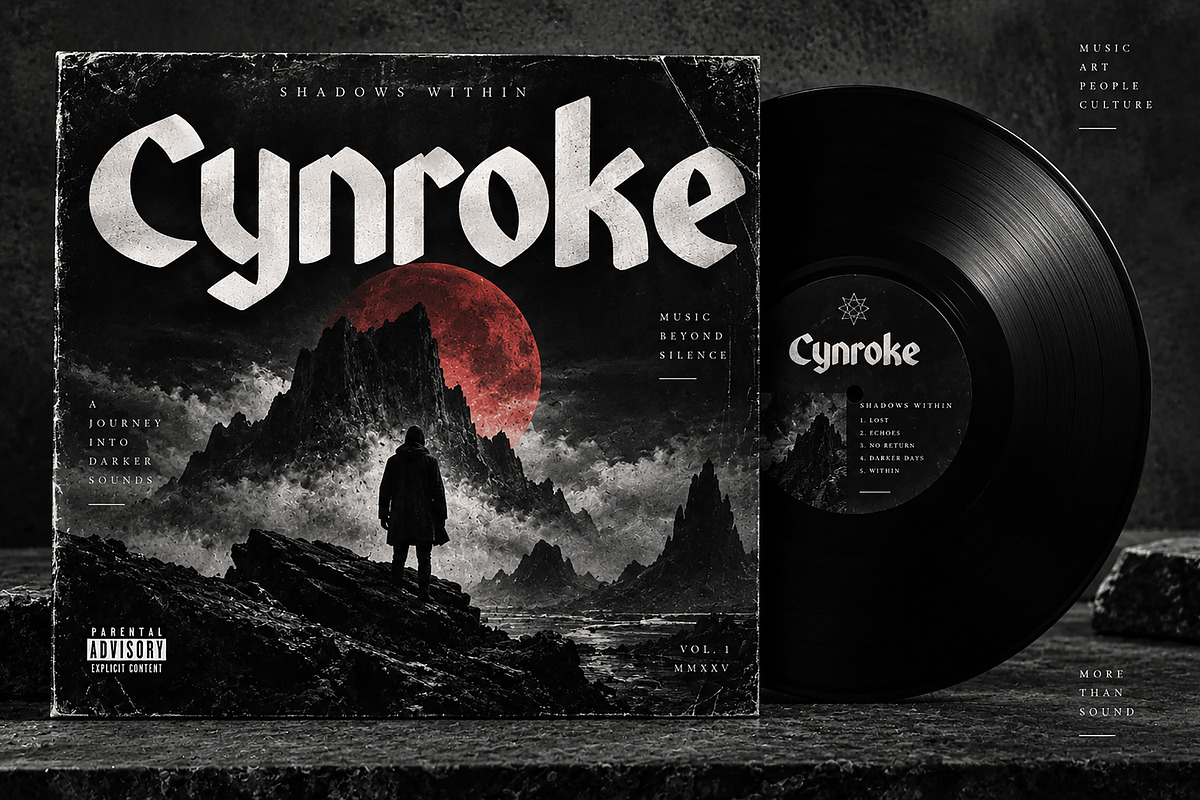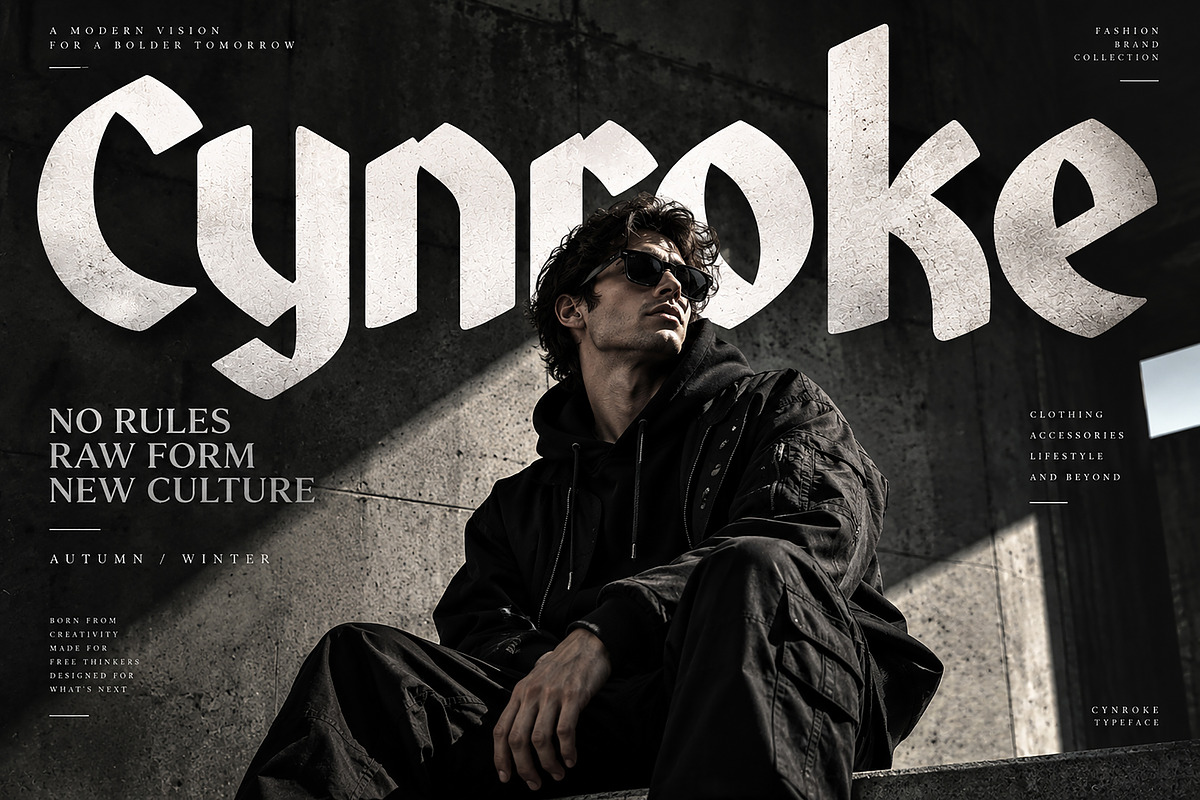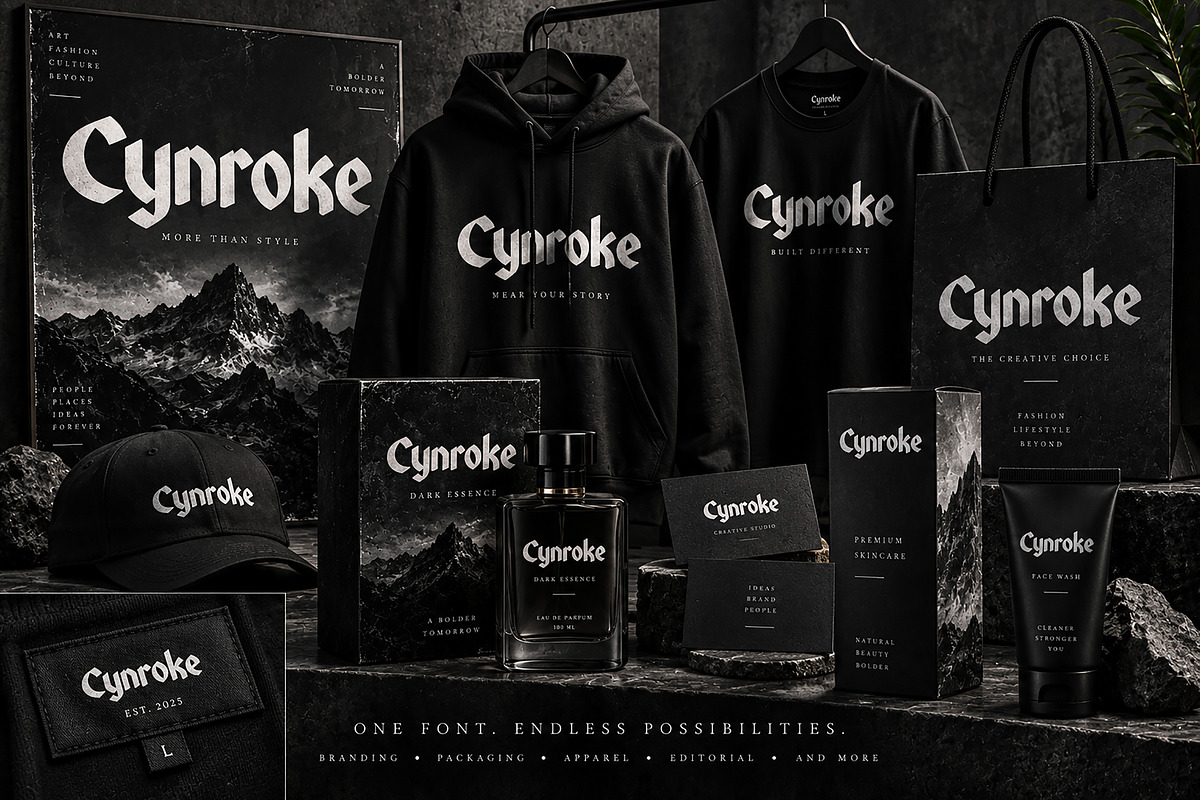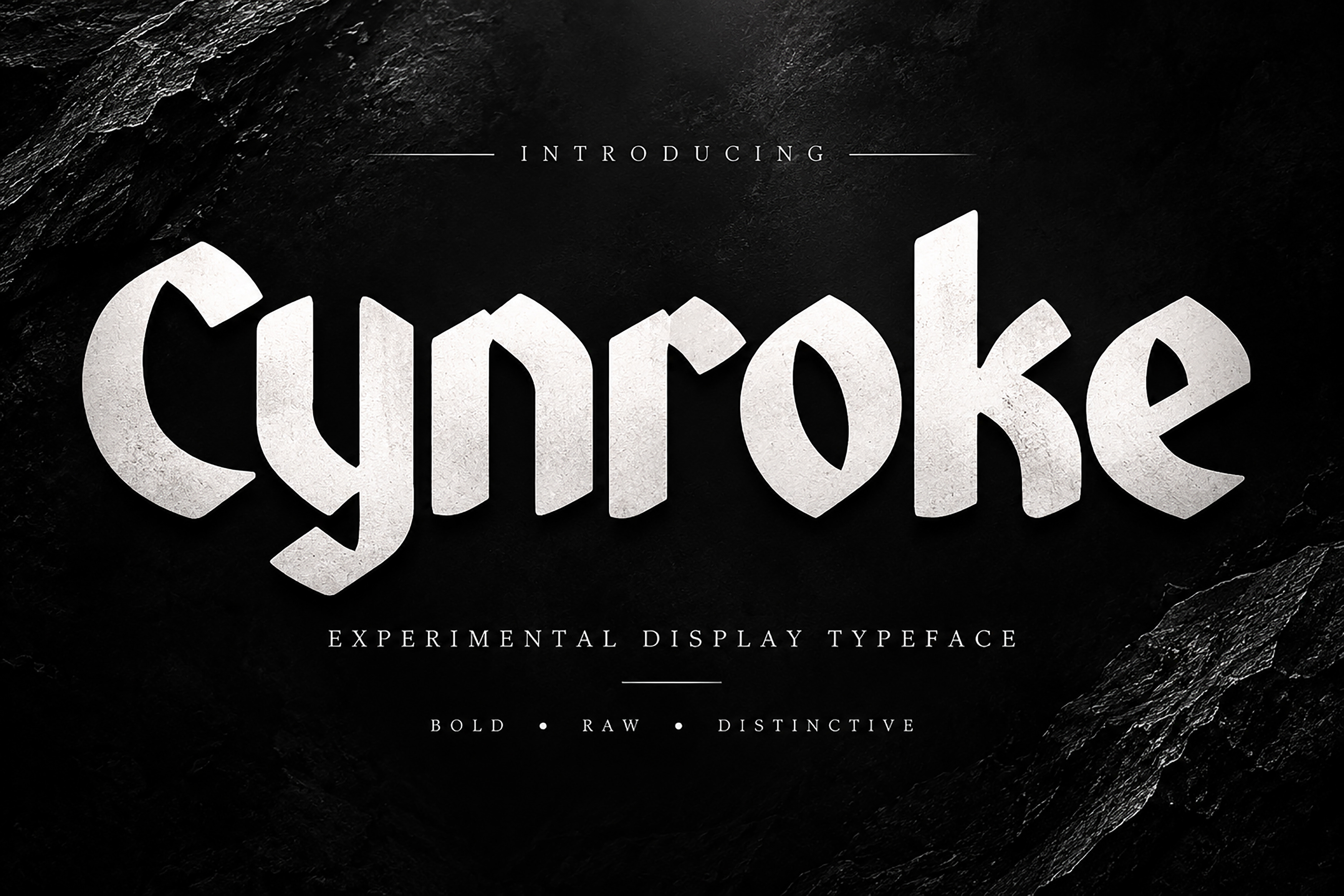
Cynroke - Display Typeface
Cynroke is a bold and experimental display typeface designed for projects that demand a strong, distinctive visual identity. With its angular letterforms, dramatic shapes, and raw contemporary character, Cynroke brings an edgy and unconventional look to your typography.
Perfect for fashion branding, streetwear, music artwork, album covers, posters, editorial designs, packaging, merchandise, logos, labels, and creative branding projects.
Its powerful display style works especially well when you want headlines, brand names, and promotional graphics to immediately grab attention.
Fashion & Streetwear Branding
Logo & Brand Identity
Music & Album Artwork
Posters & Flyers
Editorial & Magazine Design
T-Shirt & Apparel Design
Labels & Merchandise
Album Covers
Event & Promotional Graphics
Creative Advertising
Experimental Typography
Bold experimental display style
Distinctive angular letterforms
Strong visual presence
Designed for impactful typography
Ideal for headlines and display applications
Suitable for both print and digital projects
Give your next project a bold, raw, and distinctive identity with Cynroke.